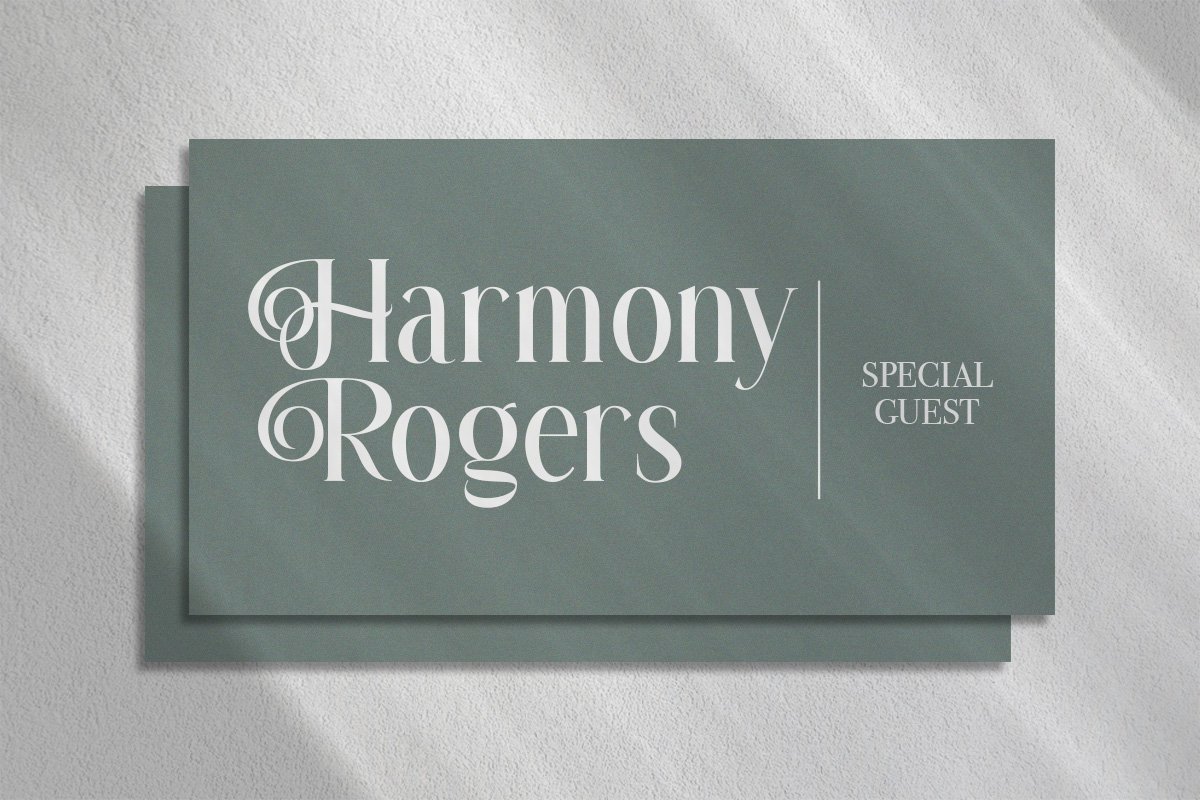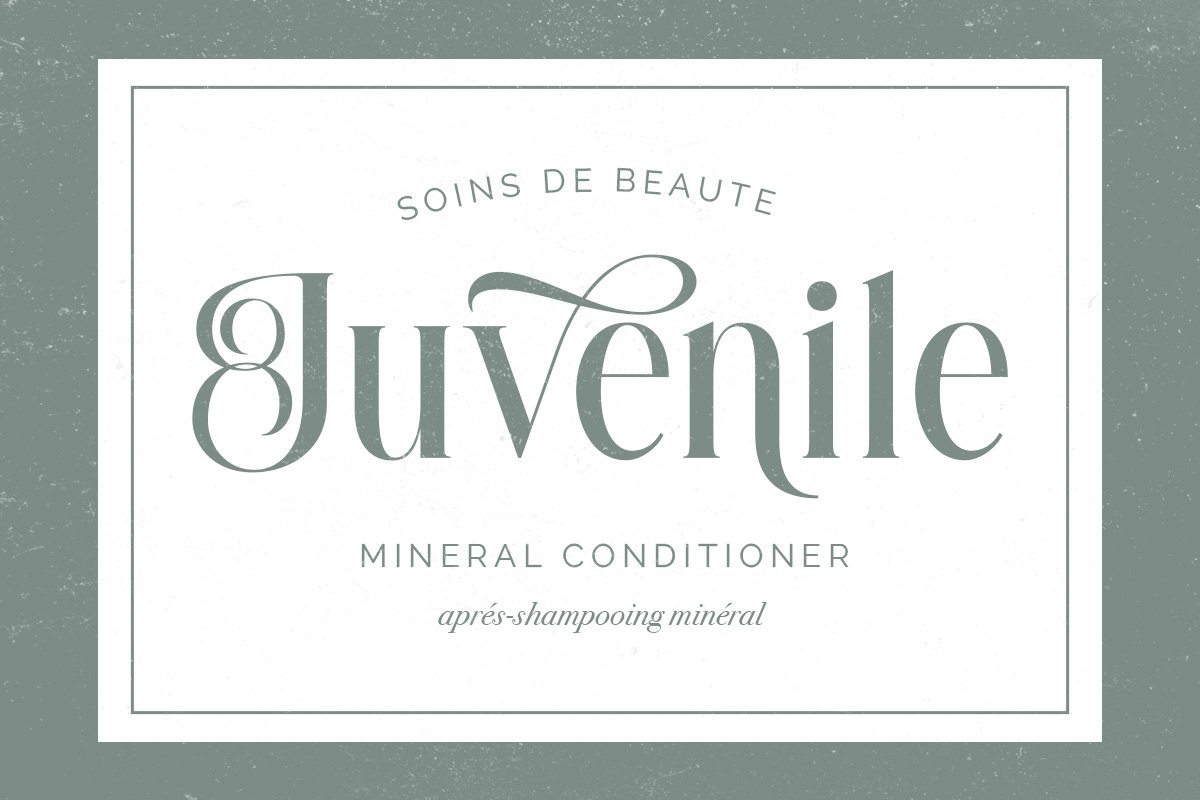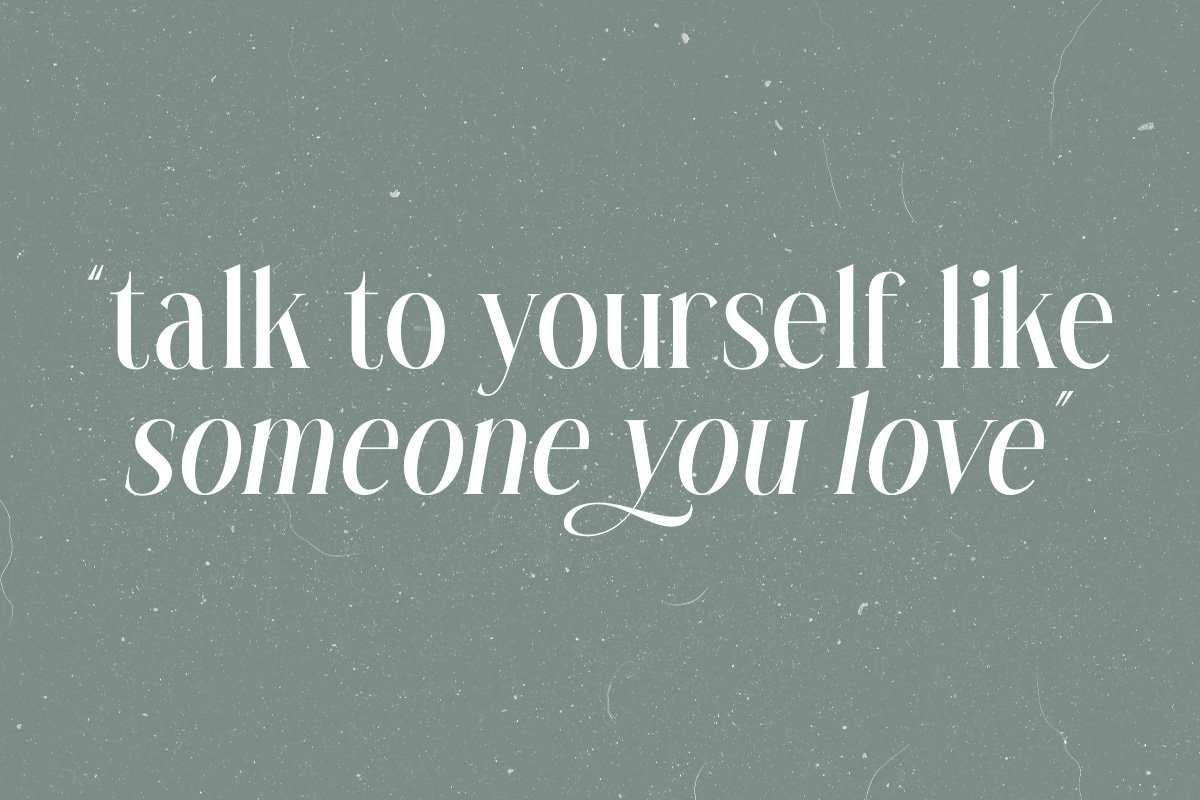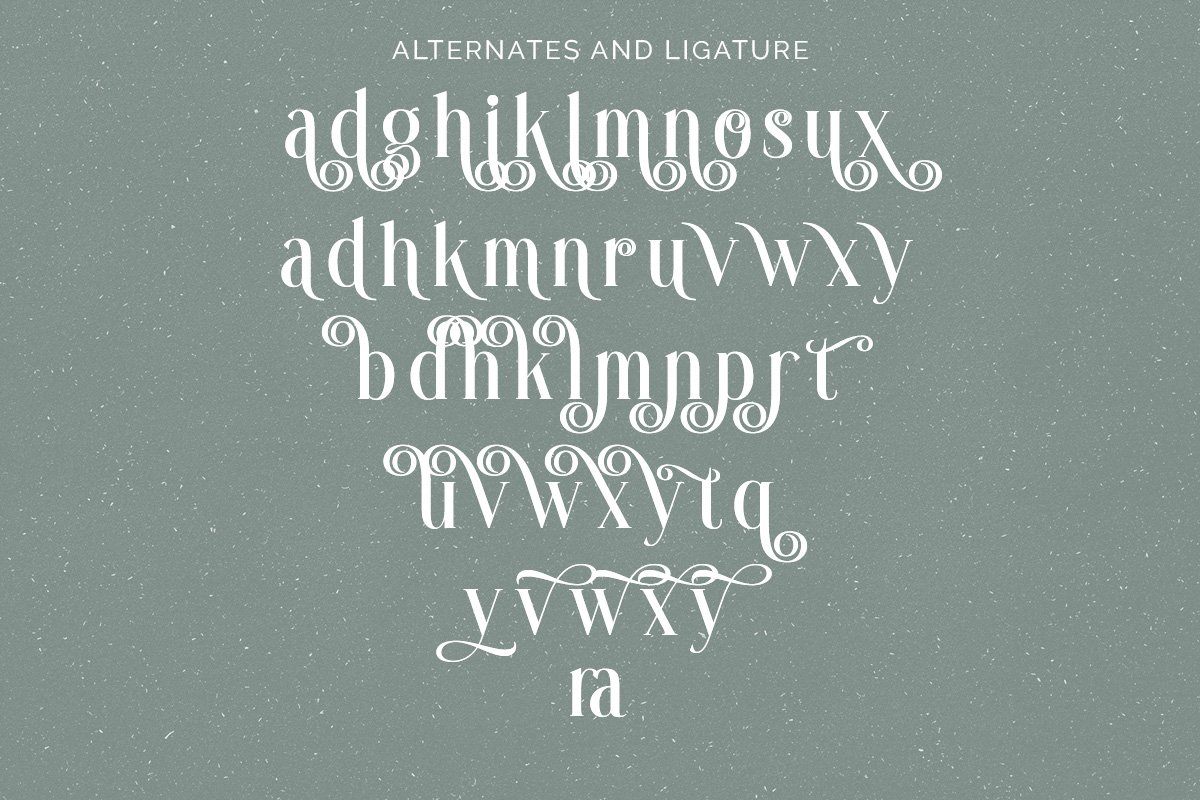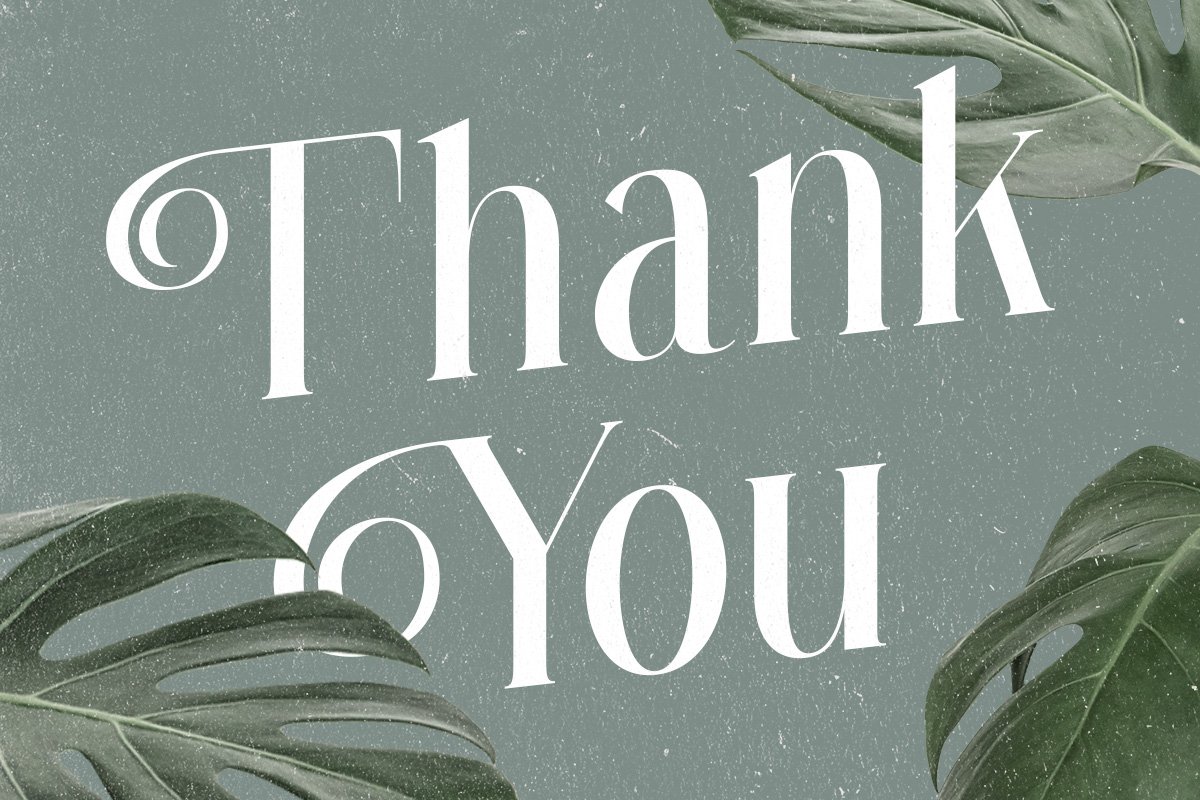
Introducing, Grayson Serif. Grayson is a swash serif font that have an unique look to give your design a little bit of elegant but still feminine. this font is perfect for magazine, headline, editorial, instagram pst, etc.